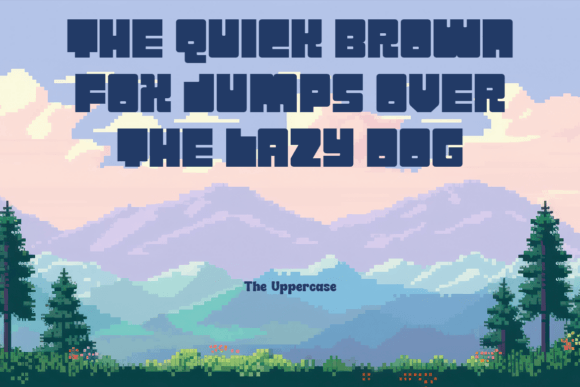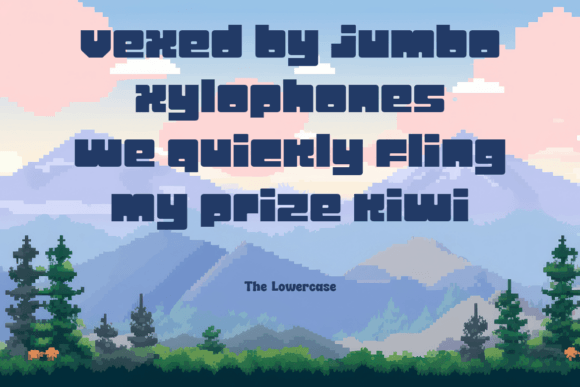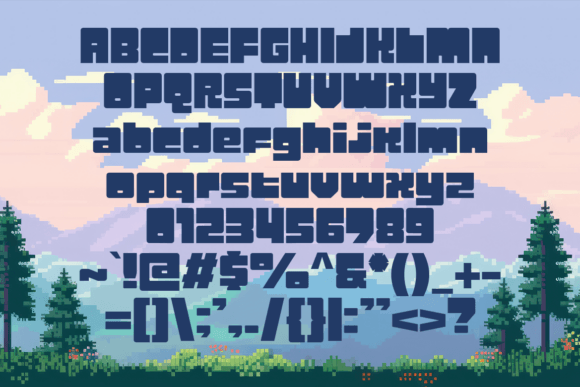
Discover the Playful Charm of Delvido Font: Elevate Your Designs with a Nostalgic Twist
Are you on the hunt for a font that injects a dose of cuteness, casualness, and playfulness into your designs? Look no further than Delvido—a delightful square and blocky typeface that’s perfect for creating bold, exciting visuals that demand attention. Inspired by the fun and vibrant world of modern games, Delvido also pays homage to classic mechanisms, evoking a sense of nostalgia that’s sure to captivate your audience.
The Inspiration Behind Delvido
Delvido’s design is deeply rooted in the aesthetics of today’s gaming world, where fun, interactivity, and visual appeal reign supreme. The font’s square and blocky structure is reminiscent of pixel art and 8-bit games, which have seen a resurgence in popularity in recent years. However, what sets Delvido apart is its unique blend of modern playfulness and vintage charm, making it an excellent choice for designers looking to create engaging and memorable content.
Key Features of Delvido Font
- Cute and Playful Energy: Delvido’s design is characterized by its adorable and lively feel, making it perfect for projects that require a youthful and energetic vibe.
- Square and Blocky Structure: The font’s geometric shape gives it a sturdy and robust appearance, ideal for headlines, titles, and short texts that need to stand out.
- Nostalgic Nod to Classic Mechanisms: Delvido’s classic undertones evoke memories of early video games and mechanical devices, adding a layer of depth and familiarity to your designs.
- Versatility: Whether you’re working on a digital project, crafting a logo, or designing a poster, Delvido’s adaptability ensures it will fit seamlessly into your creative vision.
Perfect Use Cases for Delvido
Delvido’s unique characteristics make it suitable for a wide range of design projects. Here are some ideal use cases:
- Game Development: Delvido is a natural fit for game titles, in-game text, and UI elements, thanks to its gaming-inspired aesthetic.
- Branding and Logos: The font’s playfulness and nostalgia make it an excellent choice for logos and brand identities that aim to connect with a younger audience.
- Posters and Flyers: Delvido’s bold and attention-grabbing design ensures your posters and flyers will cut through the noise and leave a lasting impression.
- Digital Content: From social media graphics to website headers, Delvido can add a pop of personality to your digital content.
Tips for Using Delvido Effectively
To get the most out of Delvido, consider the following tips:
- Mix and Match: Combine Delvido with other fonts to create visual interest and hierarchy in your designs.
- Play with Colors: Delvido’s bold structure looks great with bright, vibrant colors that enhance its playful energy.
- Experiment with Sizes: Use Delvido in various sizes to create emphasis and guide the viewer’s eye through your design.
Delvido font is a game-changer for designers and crafters looking to infuse their projects with a dose of playfulness, nostalgia, and charm. Its unique blend of modern and vintage elements makes it a versatile and attention-grabbing choice for a wide range of design applications. Whether you’re creating digital content, crafting a brand identity, or designing eye-catching posters, Delvido is sure to bring your designs to life in a fun and exciting way.